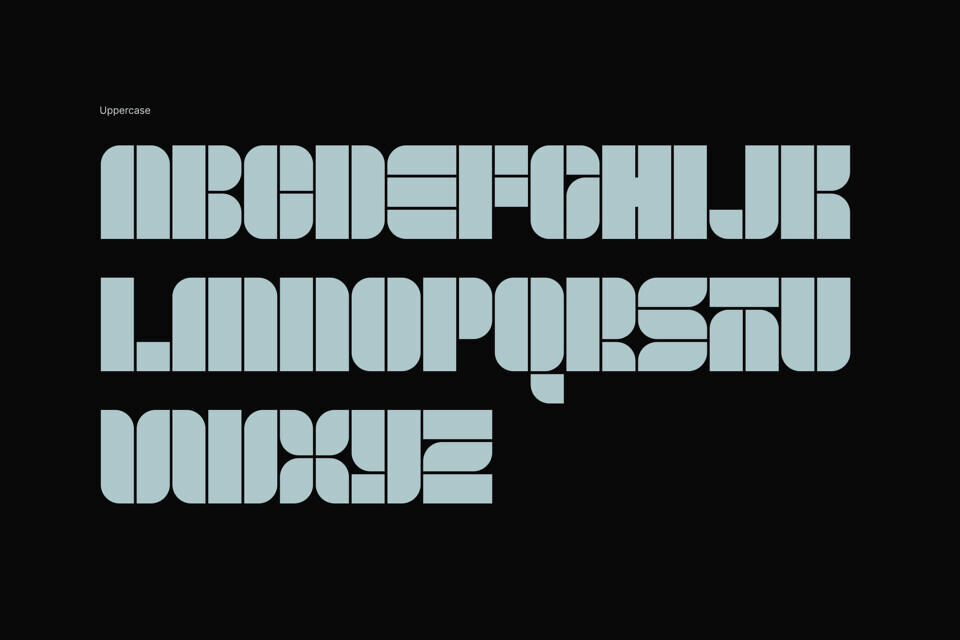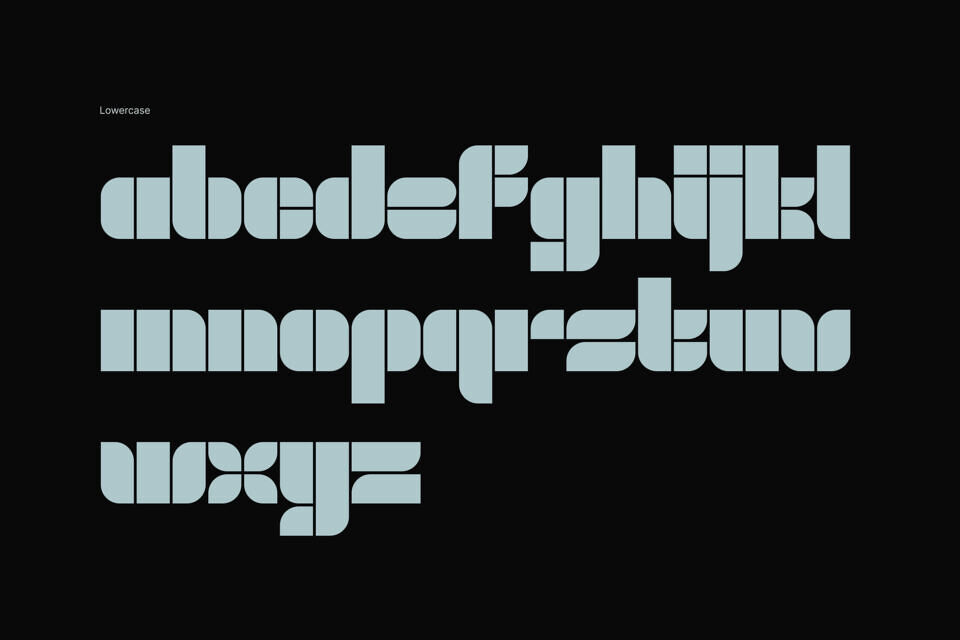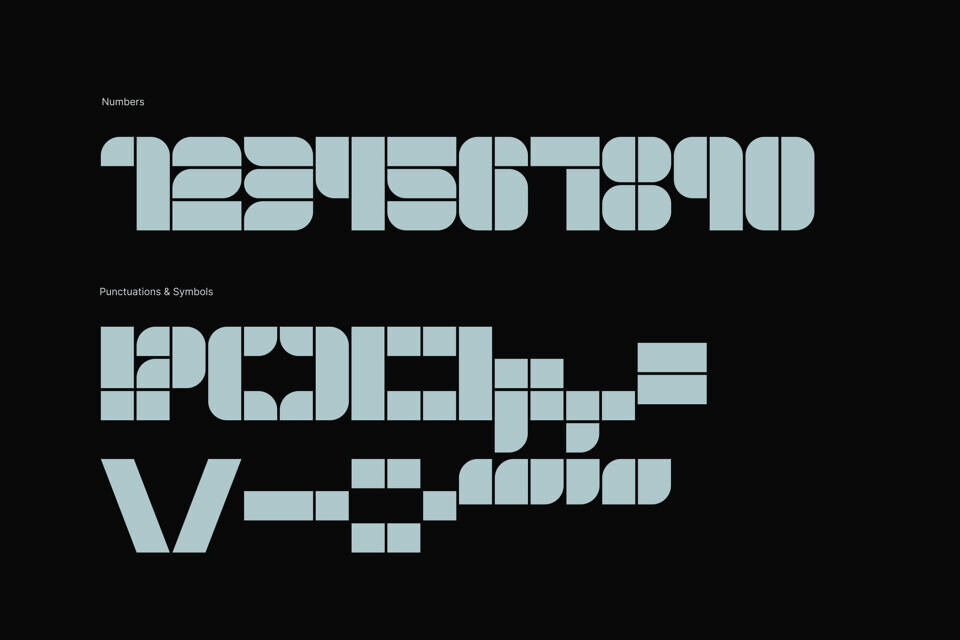
Block Font
Block is a font created with basic geometrical shapes. Each characters are formed with blocks of basic rectangles with various curved corners, separated with either vertical or horizontal gap, creating the stencil-like effect.
Besides that, the characters are tightly kerned, so that the gaps are consistent. It also carries the concept of building blocks, and giving monospaced-like visual outcome.
Block font comes with basic latin characters including uppercases, lowercases, numbers and selected punctuations.